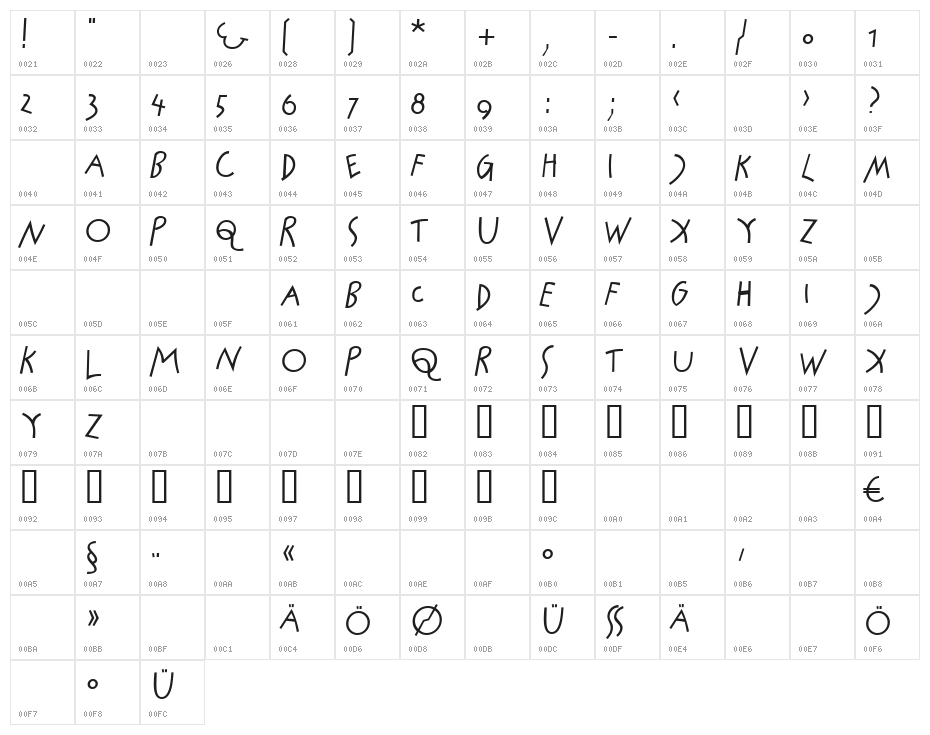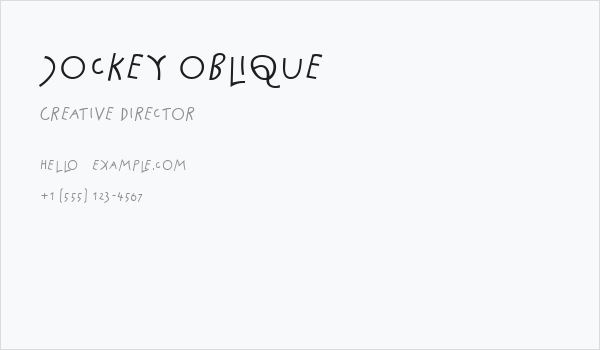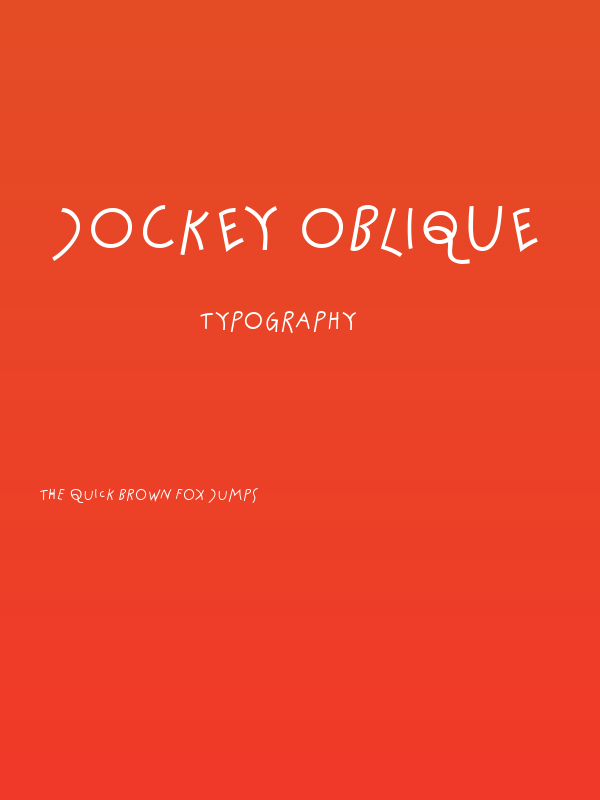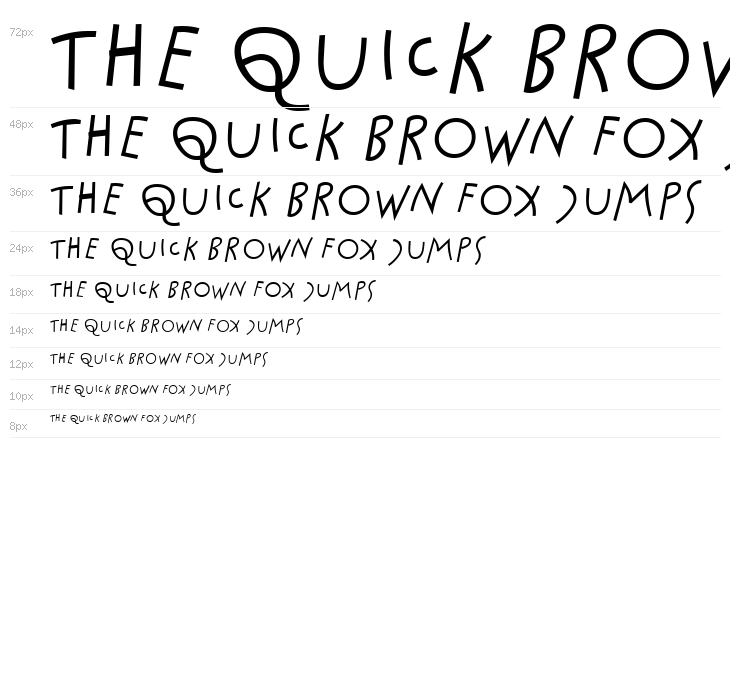
Jockey Oblique Font
Jockey Oblique Description
This font features a playful and dynamic style with a distinct oblique slant, giving it a sense of movement and energy. The characters are bold and slightly irregular, adding a whimsical touch to the overall design. The uppercase and lowercase letters maintain a consistent style, with sharp angles and smooth curves that create a harmonious balance. The numerals are uniquely styled, complementing the alphabet with their quirky shapes. Special characters are included, maintaining the font's lively and engaging aesthetic.
| Overall Style | Playful, Dynamic |
| Proposed Projects | Ideal for children's books, playful branding, creative posters, and artistic projects that require a lively and engaging typeface. |